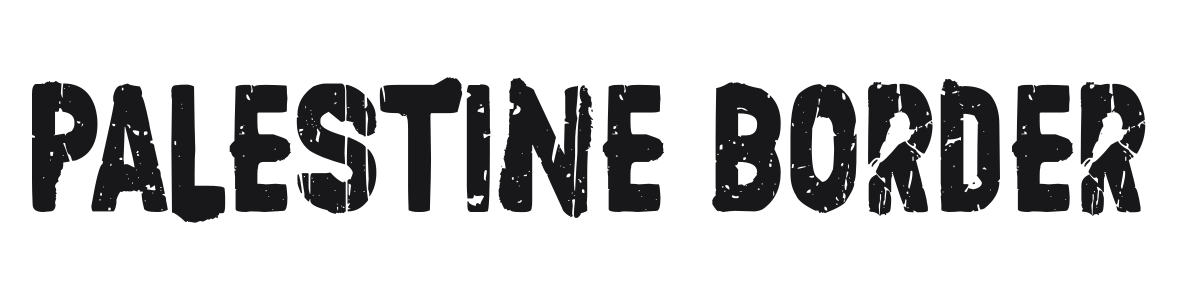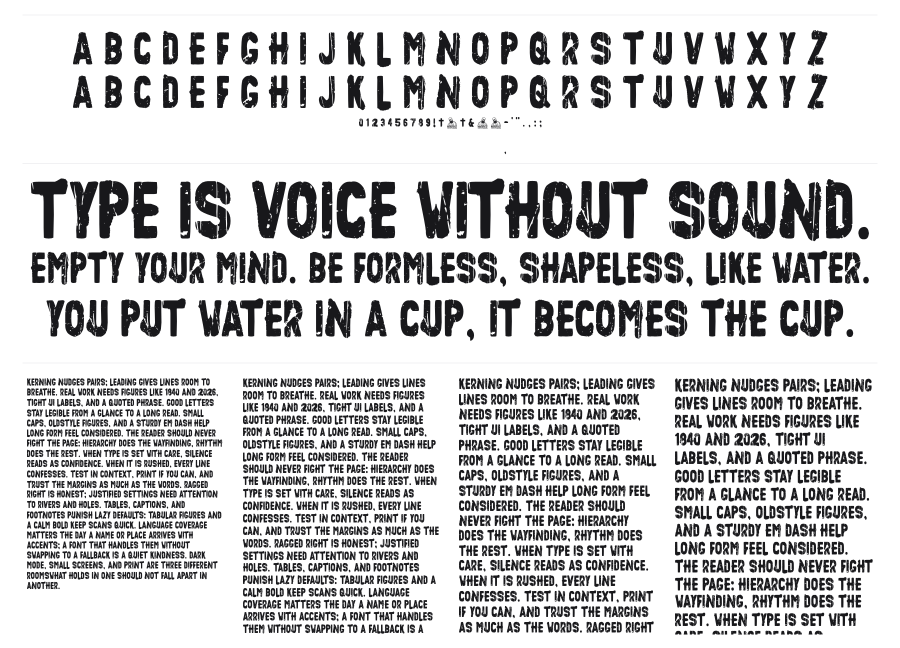
Palestine Border
Palestine Border is a heavy condensed display font by Woodcutter Manero, built around aggressive distressing that mimics cracked woodblock print or worn stencil ink. Every character carries a dense texture of chips and erosion that feels deliberately rough and confrontational. It suits protest posters, punk flyers, and any design that needs to look like it was printed under pressure.